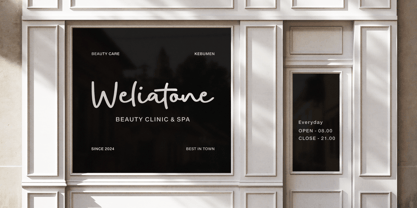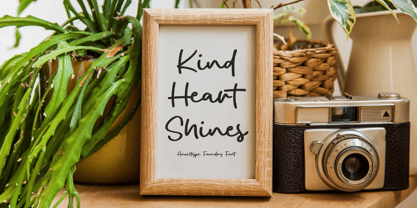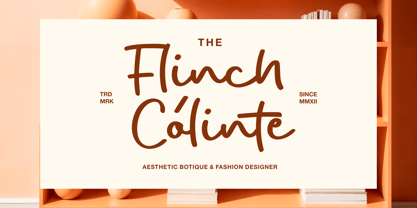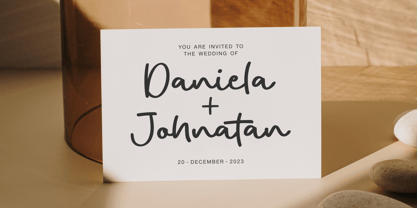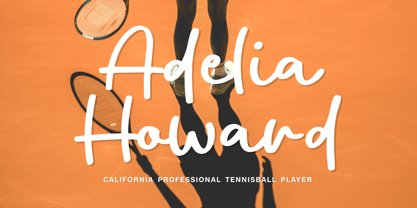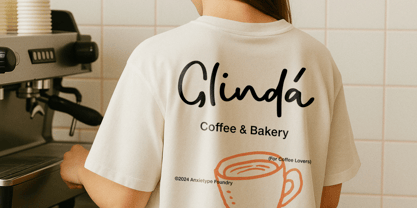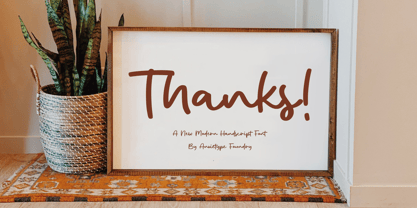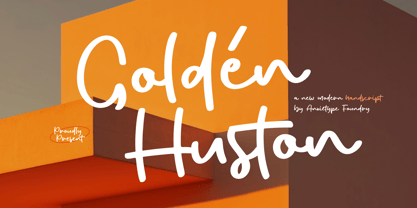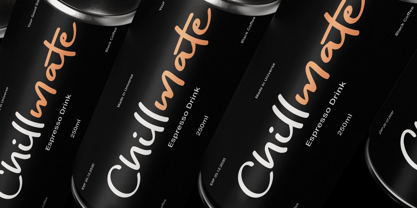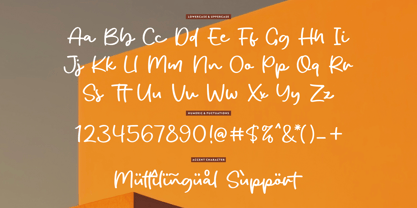
Golden Huston
by Anxietype Foundry
The Golden Huston Font Family was designed by Annas Rifky Anhar and published by Anxietype Foundry. Golden Huston contains 1 styles. More about this family
Introducing Goldén Huston, a handscript font crafted by Anxietype Foundry. This font caters to display visual flair, whether it’s enhancing the allure of your product packaging, infusing an avant-garde touch to your branding endeavors, or injecting sophistication into your magazine layout and social media persona. Beyond basic utilities, the Goldén Huston font can spell magic for your wedding nuances or pack a powerful punch when juxtaposed with a striking background. Immerse yourself in the signature charisma of Goldén Huston and allow your designs to script a captivating narrative.